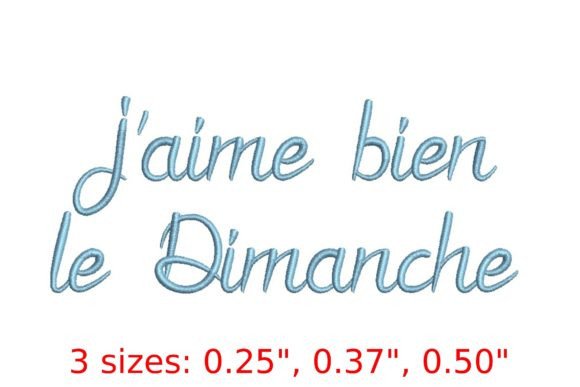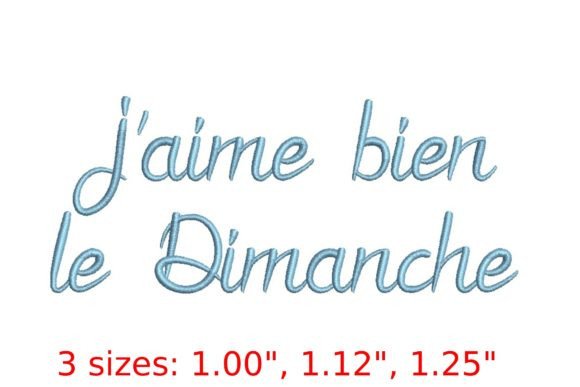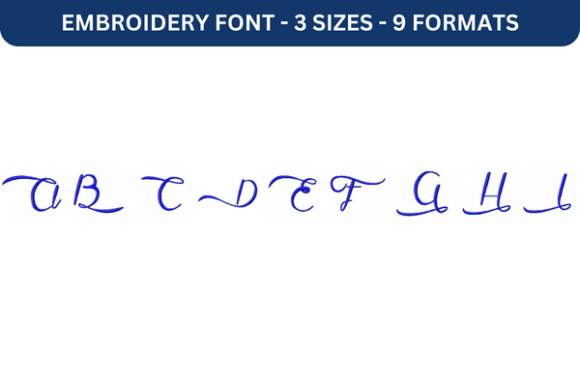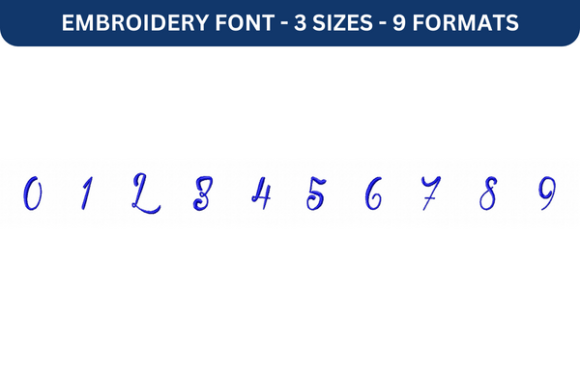
J’aime Bien Le Dimanche Embroidery Font
The J’aime Bien Le Dimanche Embroidery Font is more than just a design—it’s a celebration of the simple joys that Sundays bring. Inspired by the French phrase, which translates to “I love Sundays,” this script font captures the essence of relaxation, leisure, and elegance. Whether you're a hobbyist or a professional, this embroidery font offers a unique way to express creativity while enhancing your projects with a touch of sophistication.
Why This Font Matters for Your Projects
In an era where personal expression is increasingly valued, having the right tools can make all the difference. The J’aime Bien Le Dimanche Embroidery Font allows you to infuse your work with a sense of warmth and charm that resonates with audiences. Its flowing script style is ideal for adding a decorative element to items like tablecloths, towels, and even personalized gifts. For those who enjoy crafting, this font adds a layer of artistic flair that elevates the overall presentation of their creations.
Practical Benefits for Creators and Hobbyists
For educators or marketers looking to create visually appealing materials, the J’aime Bien Le Dimanche Embroidery Font offers a way to stand out. Its elegant yet approachable style can be used to craft signage, promotional items, or even educational resources. The font's ability to convey both beauty and simplicity makes it a valuable asset in any creative toolkit.
Who Will Benefit Most from This Font?
This font is particularly well-suited for individuals who value both aesthetics and functionality. Small business owners, for instance, can use it to create branded merchandise that reflects their brand's personality. Freelancers and designers may find it useful for client projects that require a distinctive visual identity. Hobbyists, too, will appreciate how it enhances their personal projects with a refined touch.
Those who are new to embroidery may also benefit from this font. Its clear design and intuitive layout make it easier to navigate the process of creating intricate patterns. Moreover, the font’s compatibility with various embroidery machines means that users don’t need to worry about technical limitations when experimenting with different styles.
Real-World Use Cases
- Celebratory Items: Use the font to create embroidered signs for events, birthdays, or special occasions. Its elegant script adds a personal touch that complements the theme of the event.
- Personalized Gifts: Add a meaningful message to handmade items such as mugs, pillows, or fabric art. The font’s soft curves make it perfect for creating a warm and inviting feel.
- Brand Identity: Incorporate the font into logos or branding elements to establish a cohesive visual identity that reflects the values of your business.
- Home Decor: Use it to embellish home textiles, like curtains or throw blankets, to add a touch of French-inspired elegance to your living space.
Enhancing Creativity and Communication
The J’aime Bien Le Dimanche Embroidery Font encourages creativity by offering a unique visual language. It allows creators to communicate messages with both style and substance. Whether you're designing for a client or creating something for yourself, this font helps convey emotion and meaning through its design.
For bloggers or content creators, using this font in their embroidery projects can serve as a form of storytelling. Each piece becomes a narrative, reflecting the joy and simplicity associated with Sundays. This connection between design and message can help resonate with audiences on a deeper level.
Considerations and Limitations
While the J’aime Bien Le Dimanche Embroidery Font offers many benefits, it’s important to consider its limitations. The font is best suited for projects that emphasize elegance and charm rather than bold or modern designs. If you’re looking for a more contemporary look, you may want to explore other options that better align with your vision.
Additionally, while the font provides detailed sizing information for certain letters, it’s always a good idea to review the full specifications before starting a large-scale project. This ensures that your final result meets your expectations in terms of size, spacing, and overall appearance.
Conclusion
The J’aime Bien Le Dimanche Embroidery Font is a thoughtful addition to any creator’s toolkit. It combines the beauty of French culture with the practicality of modern embroidery design. Whether you're a seasoned designer or just starting out, this font offers a way to elevate your work with grace and style. By embracing its unique characteristics, you can create pieces that not only look beautiful but also tell a story—one that celebrates the joy of Sundays and the art of embroidery.